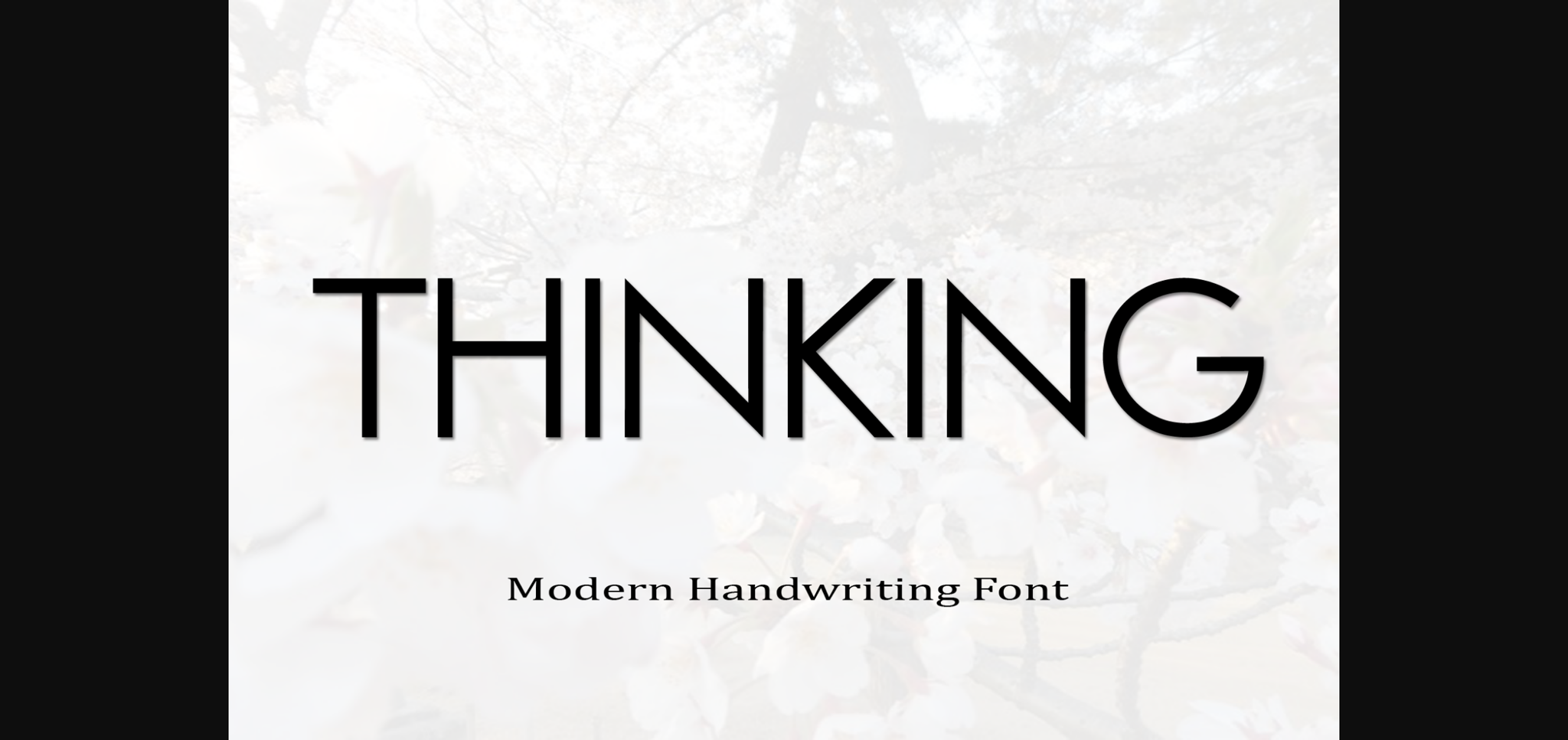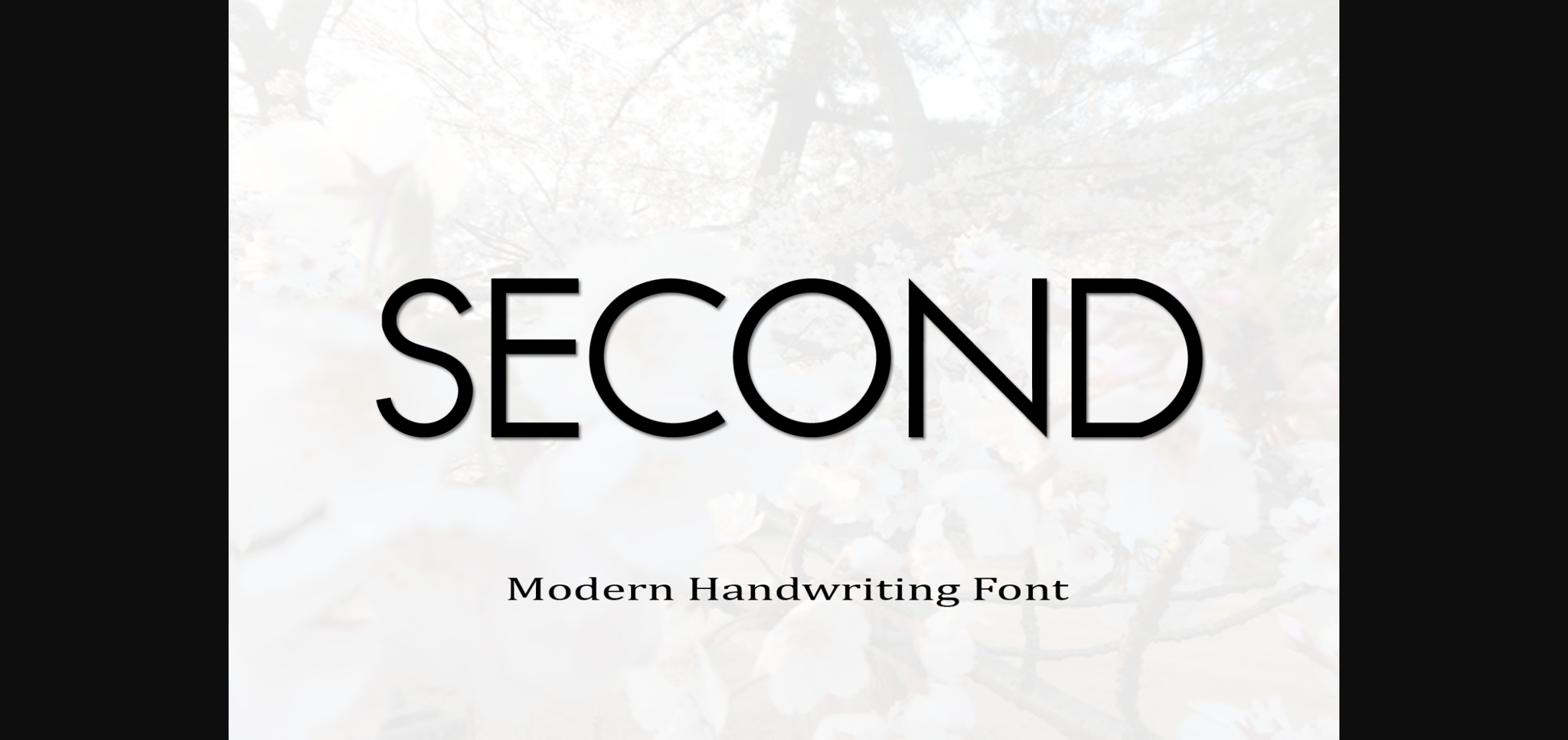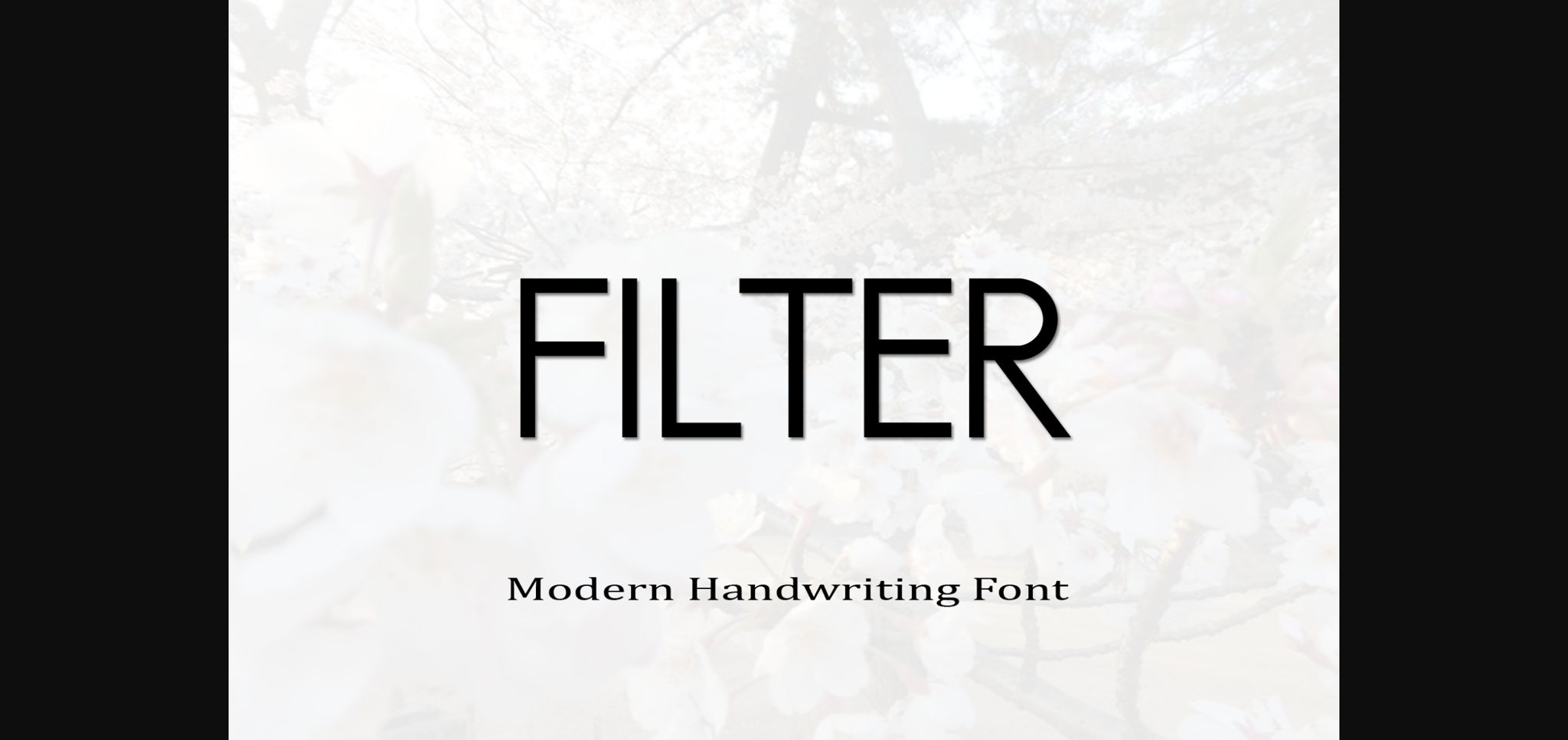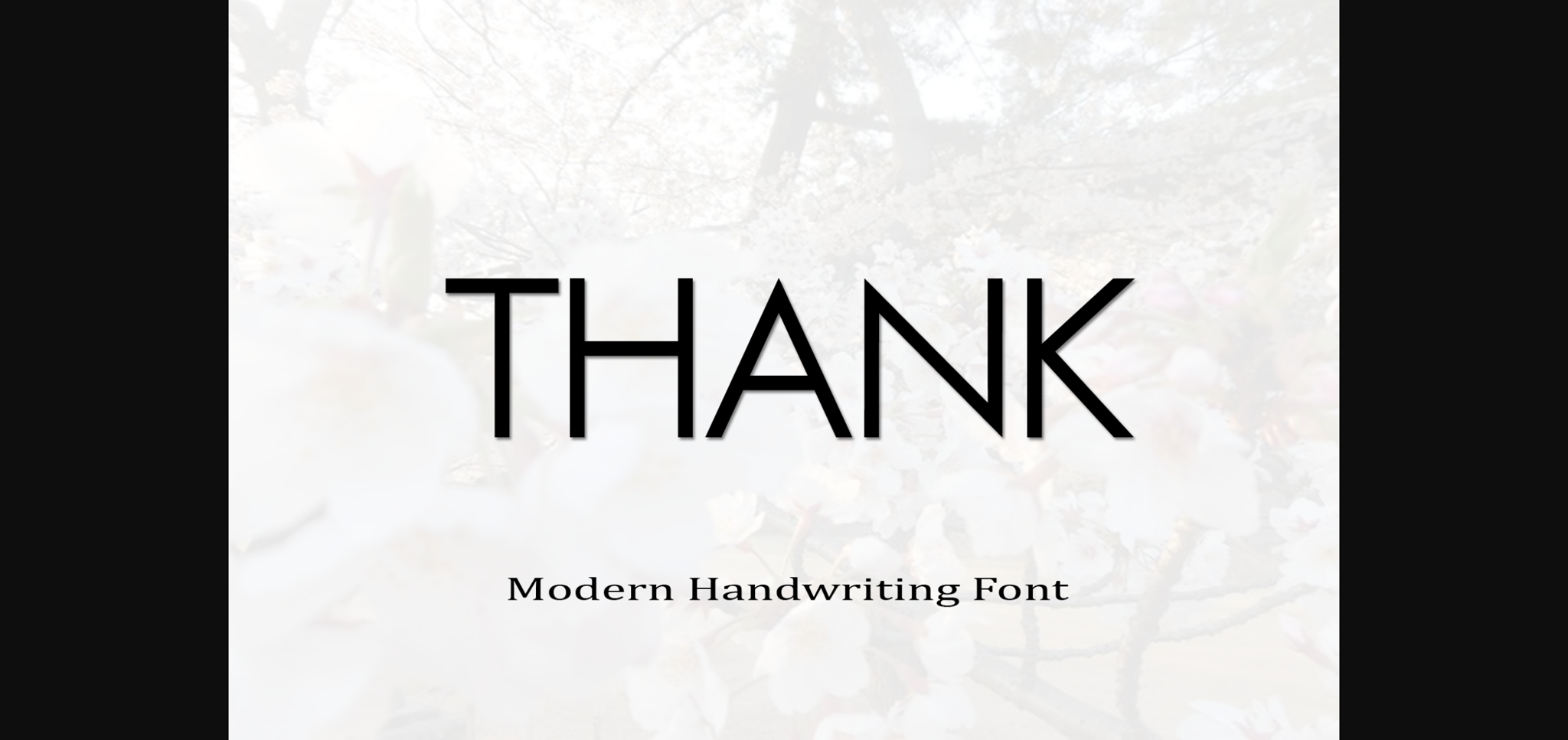
About Thinking Font
Thinking is a classic and simple handwritten script, created in a random and free style.
It is suitable for logotype, headline font, in corporate identity, brand identity, apparel industry, poster, music, movie, game, magazine, book, comic, cartoon, YouTube, Instagram, website, or any of your creative design projects